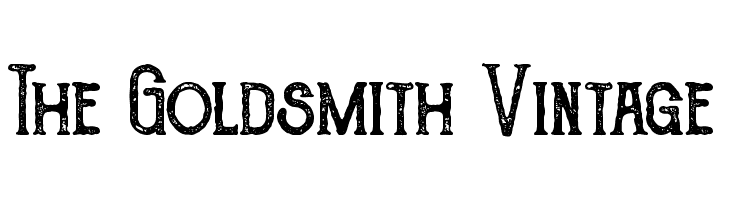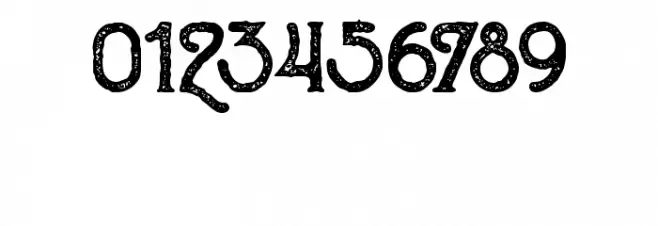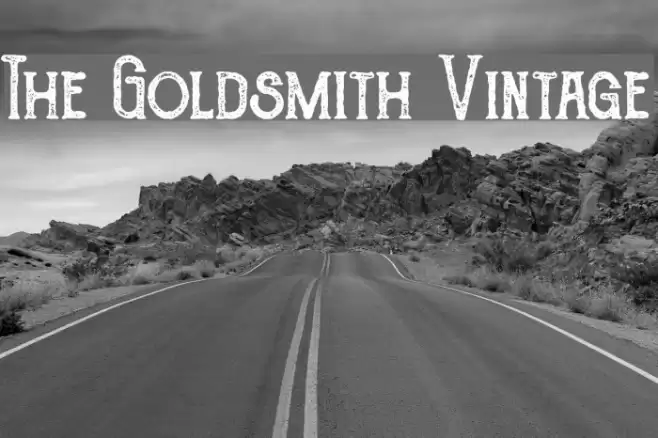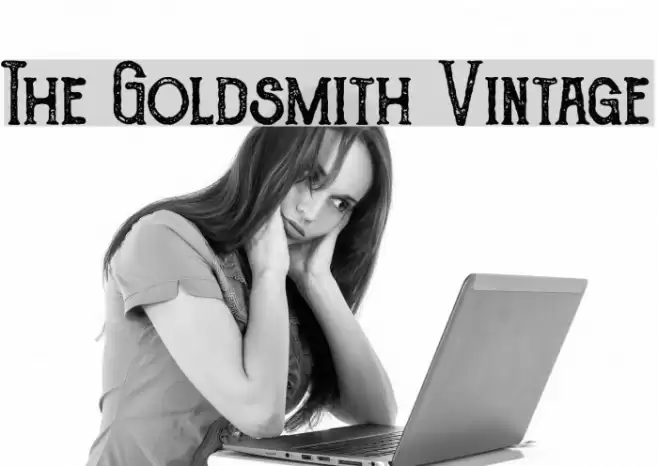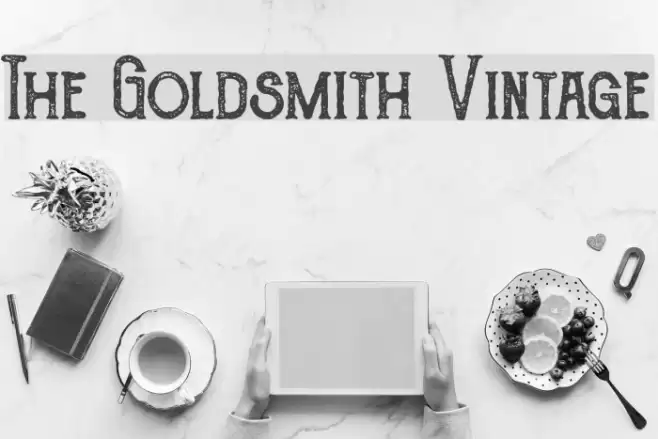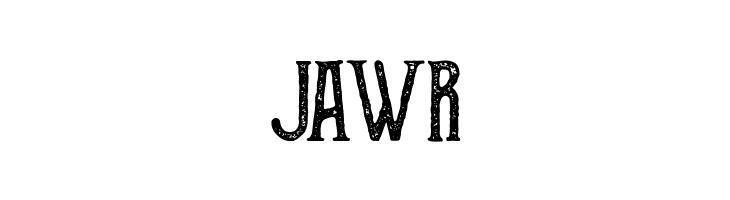
The Goldsmith Vintage Font
The Goldsmith Vintage Description
This font exudes a vintage charm with its distressed and textured appearance, reminiscent of old printing techniques. The uppercase letters are bold and slightly condensed, featuring unique decorative elements that give each character a handcrafted feel. The lowercase letters maintain this style, ensuring consistency across the typeface. Numbers are equally stylized, matching the ornate and weathered look of the alphabet. This font's distinct personality makes it ideal for projects that require a touch of nostalgia and character.
A vintage-style font with distressed, decorative characters from Distorted Eroded fonts.